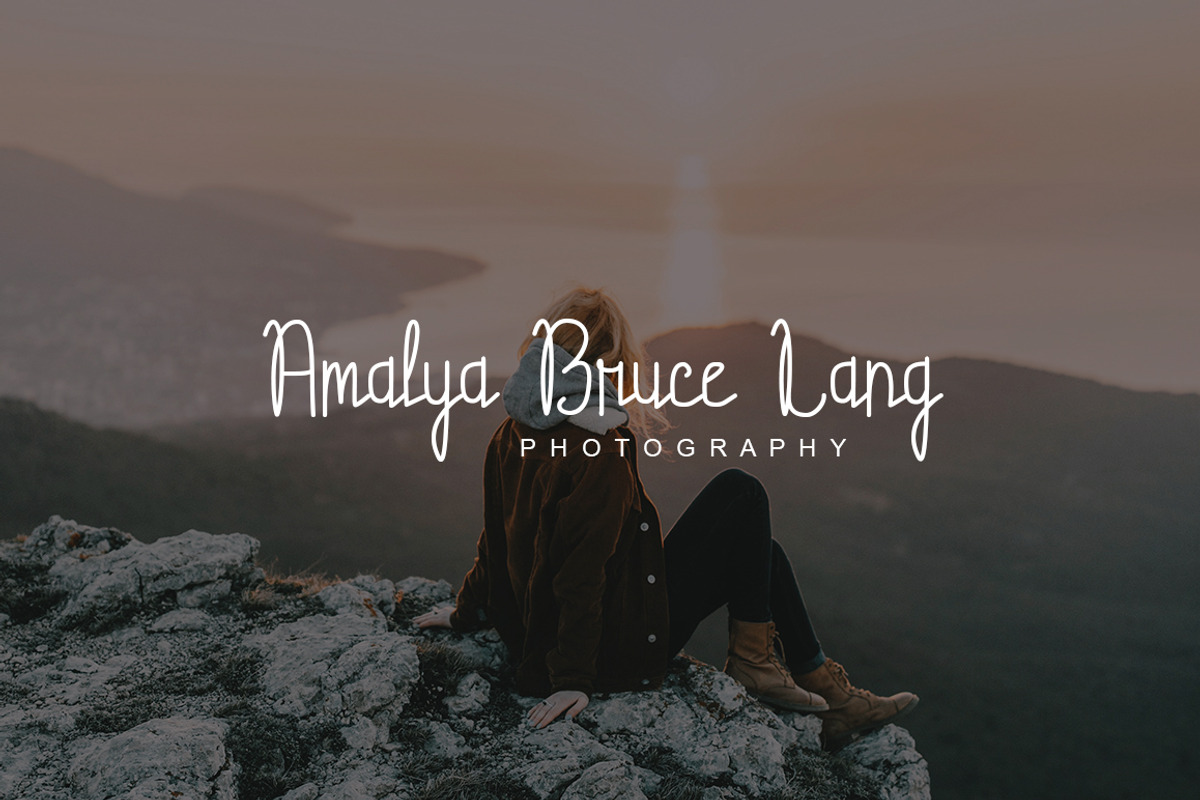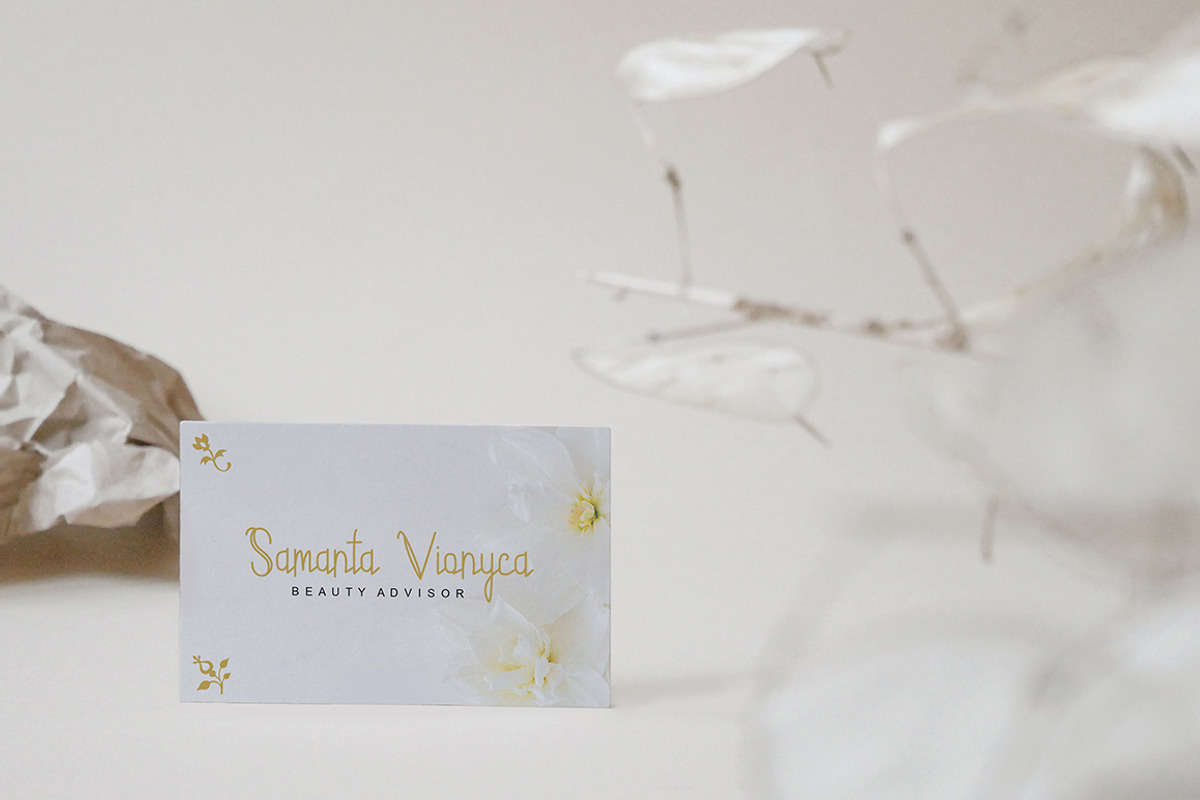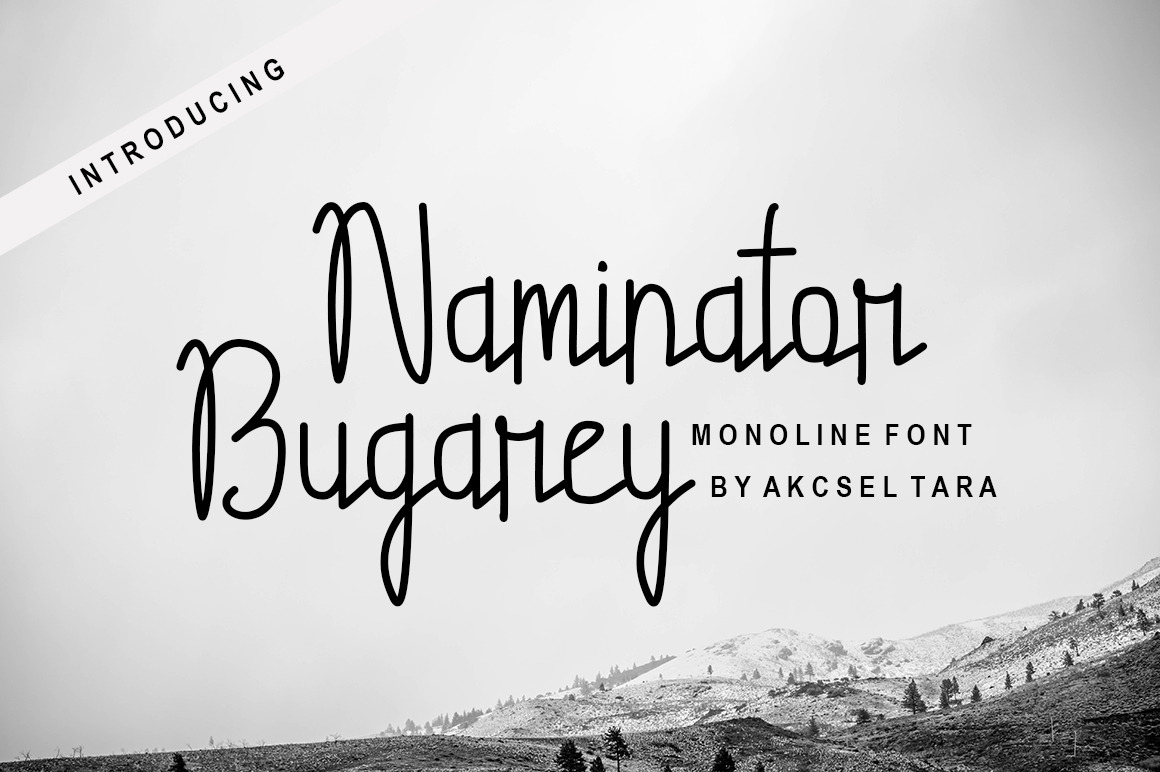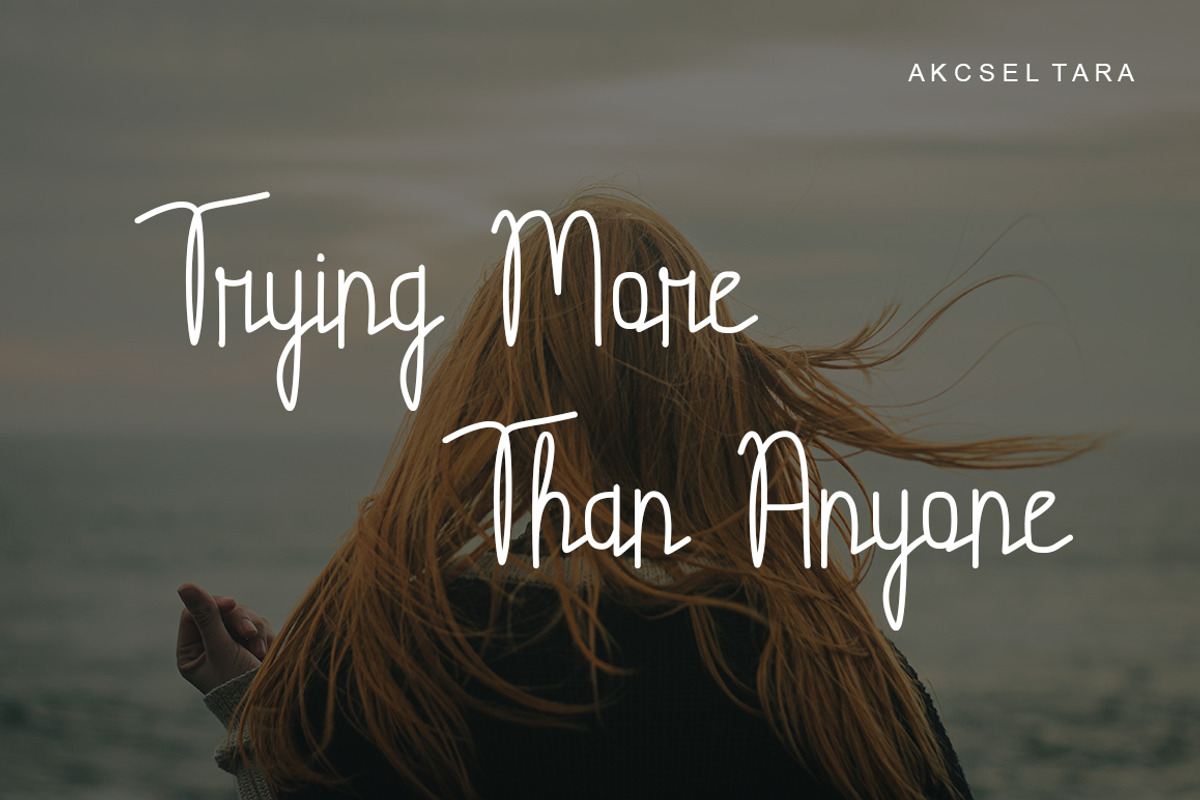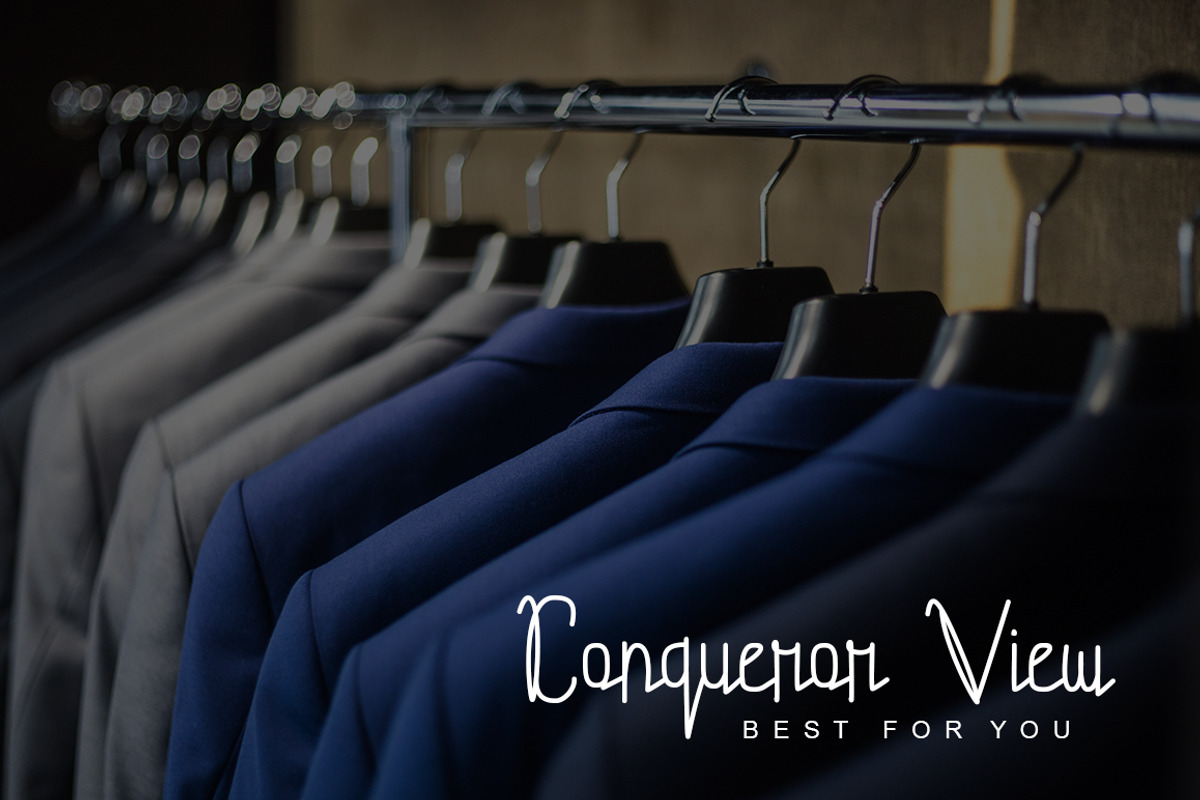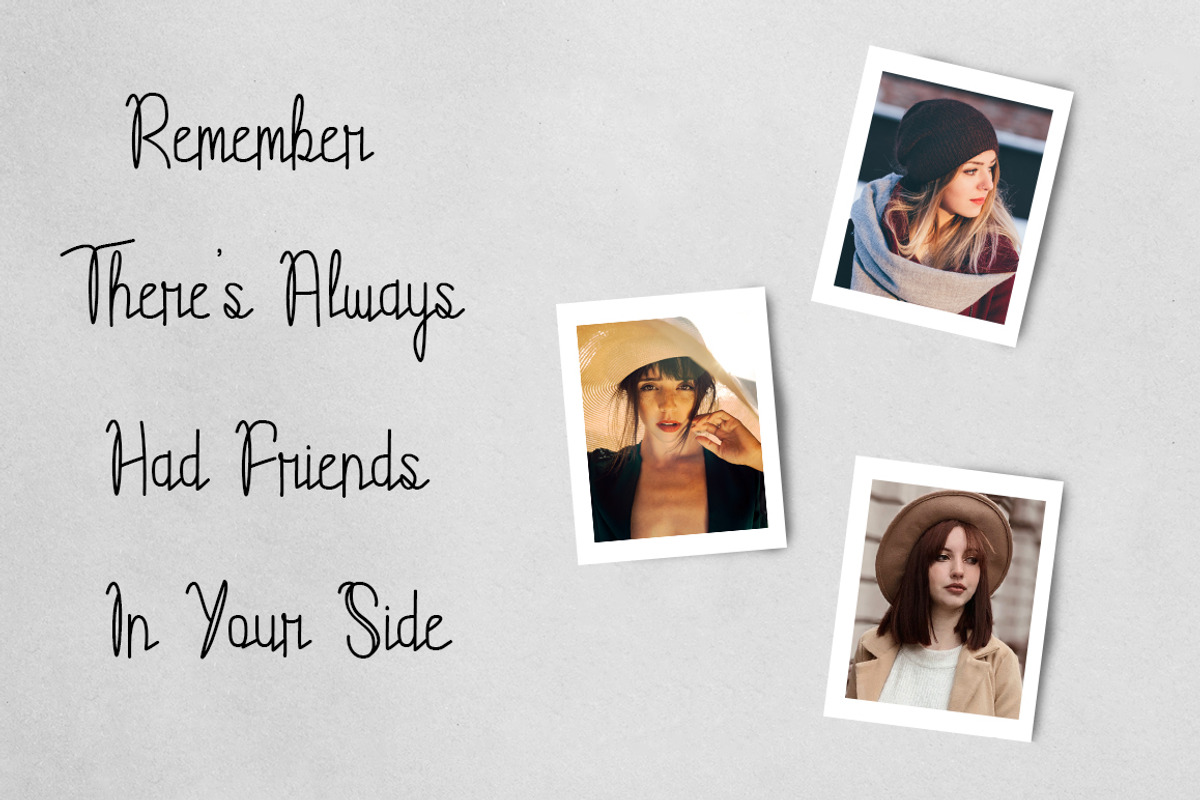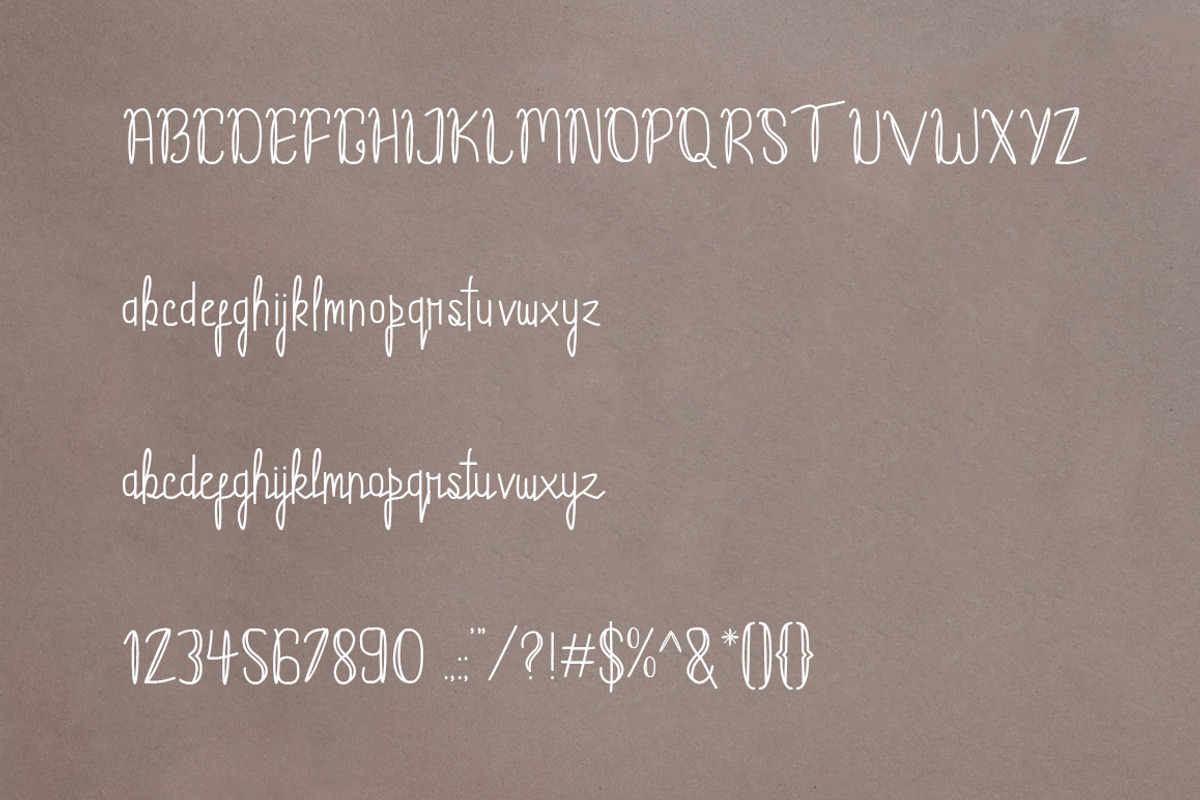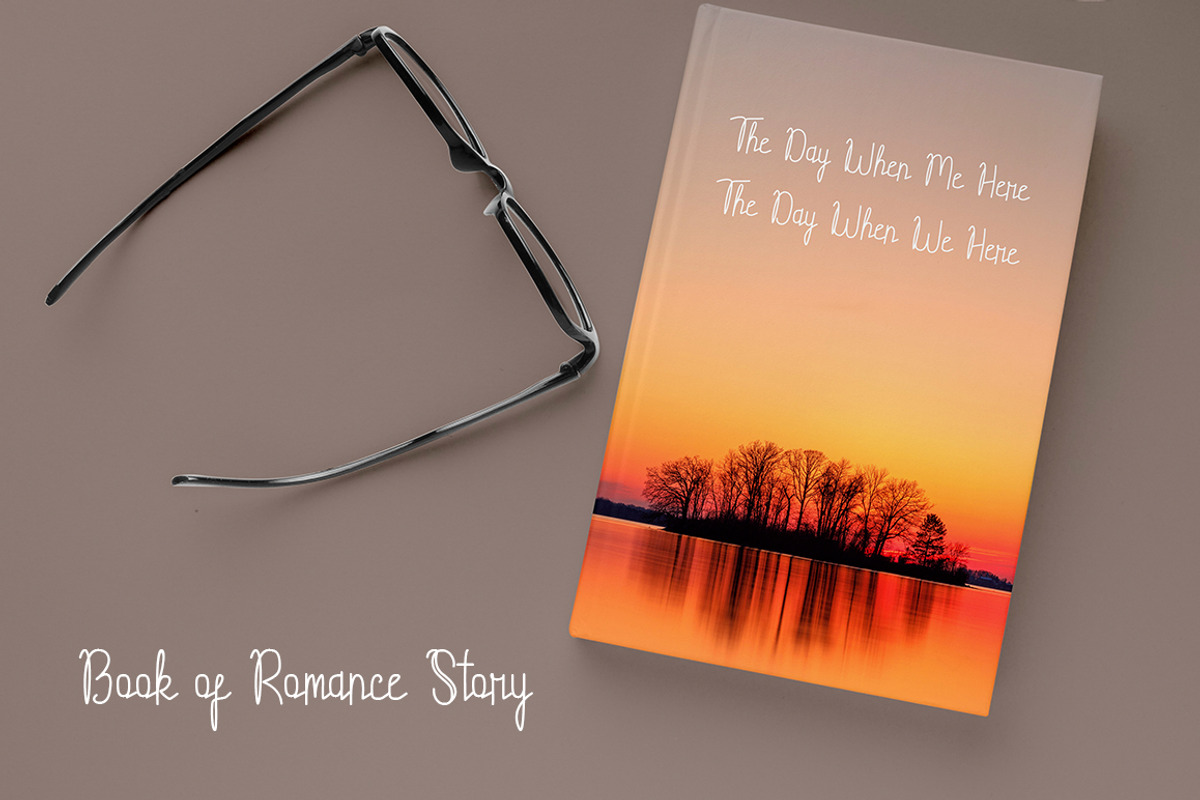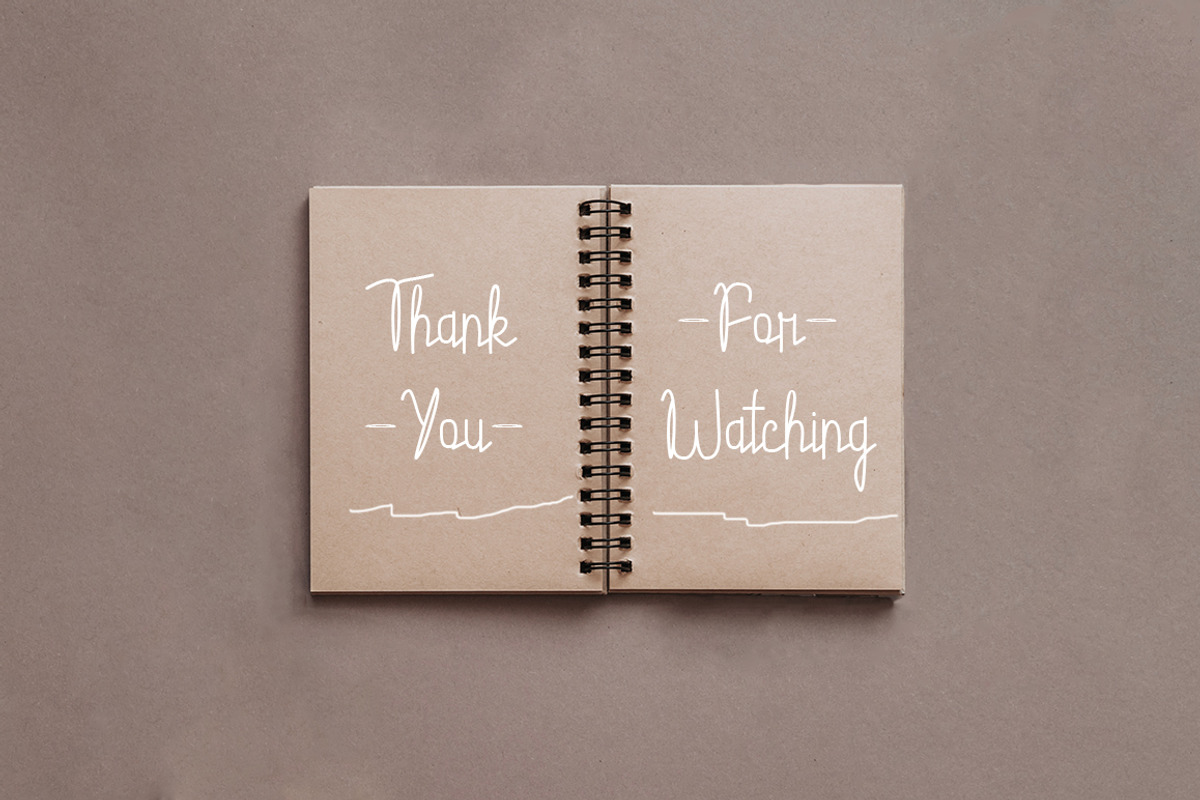
Naminator Bugarey - Monoline Font
Naminator Bugarey is a cool monoline script font that is tightly spaced and has a close feel.
Naminator Bugarey is perfect for logos, greeting card, wedding card, name card, book titles, brand identity, packaging, any project, and much more.
Naminator Bugarey includes all upper and lower case standard character, punctuation, and numerals.